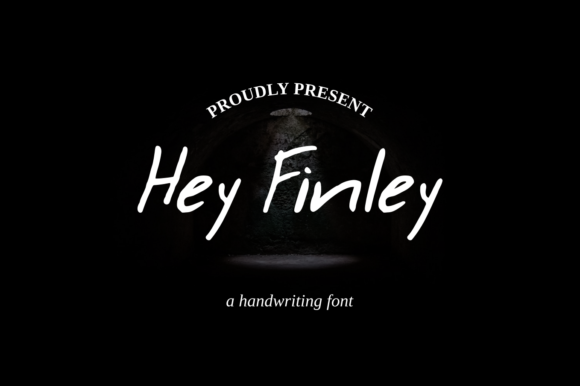
Hey Finley Font: Your Go-To Script for Captivating Handwritten Creations!
Immerse yourself in the artistry of handwritten elegance with Hey Finley Font. Its graceful curves and alluring shapes will enchant you, making it an indispensable tool for crafting heartfelt messages and breathtaking designs.
Whether you're writing heartfelt letters, designing enchanting invitations, or creating stunning social media posts, Hey Finley Font will elevate your words to new heights. Its meticulously crafted letters exude a touch of whimsy and sophistication, ensuring that your creations leave a lasting impression.
Unleash your creativity with Hey Finley Font's remarkable versatility. Its whimsical style lends itself to a myriad of projects, from personal journaling to professional branding. Let your imagination soar as you transform ordinary words into extraordinary works of art.